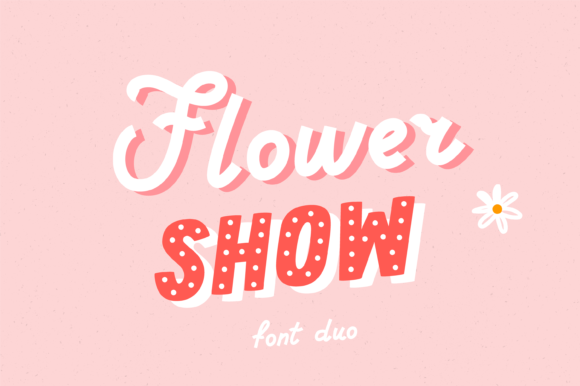
**Flower Show: A Duo Dance of Beauty and Delight**
Prepare your imagination for a new typographic adventure with Flower Show, an enchanting display duo font destined to leave an unforgettable charm on your designs. Let your creativity flourish as you embrace the harmony of its playful dance, combining a captivating display font with a free-spirited script.
Unleash the power of Flower Show to effortlessly create designs that blossom with elegance. Picture your logos bursting with an aura of distinction, your quotes gaining a voice of character, your invitations radiating with an allure that captivates hearts. Let this dynamic duo guide your crafting of greeting cards that deliver smiles, journals adorned with personal stories, and posters that command attention with their vibrancy.
But the journey doesn't end there. Embark on a magical expedition, utilizing Flower Show to bring baby clothing to life with its playful touch or to craft stunning posters that capture the essence of life's most precious moments. The possibilities are as boundless as your creativity itself.
**A Symphony of Aesthetics and Functionality:**
- **Logos:** Adorn your emblems with a touch of charm and elegance, transforming them into symbols of distinction that reflect the essence of your brand.
- **Quotes:** Grant your words a voice of character, allowing them to dance across your designs with an allure that captivates and inspires.
- **Invitations:** Create invitations that radiate with an allure that enchants, setting the tone for unforgettable events that linger in memories long after.
- **Greeting Cards:** Craft greeting cards that blossom with heartfelt sentiments, conveying warmth, joy, and love to those you cherish.
- **Journals:** Embark on a personal journey of self-expression, filling your journals with words that flow with grace and artistry.
- **Posters:** Design posters that command attention, capturing the essence of life's most precious moments with a visual symphony of colors and forms.
- **Baby Clothing:** Bring vibrance and delight to the world of little ones, adorning baby clothing with playful designs that spark imagination and joy.